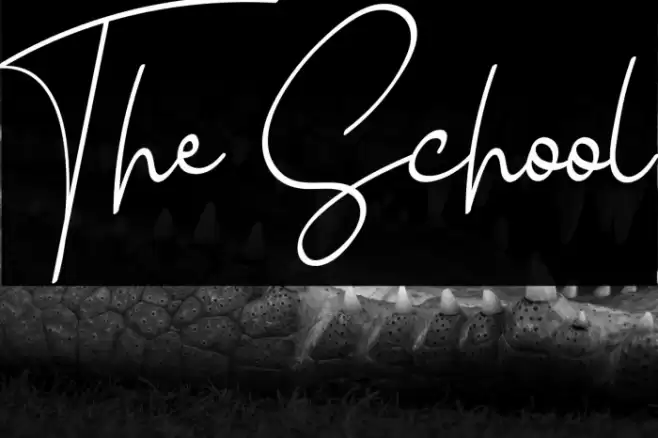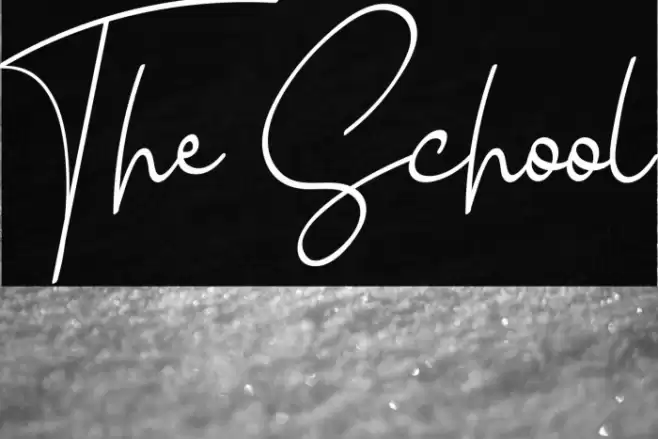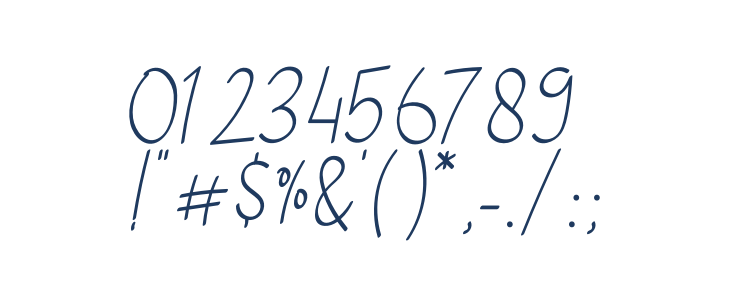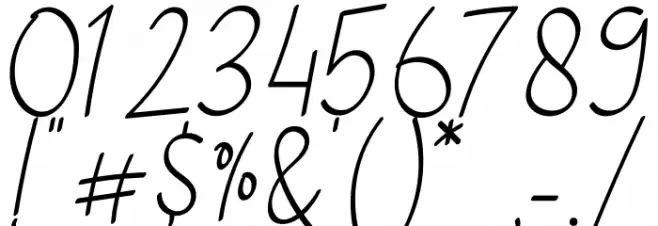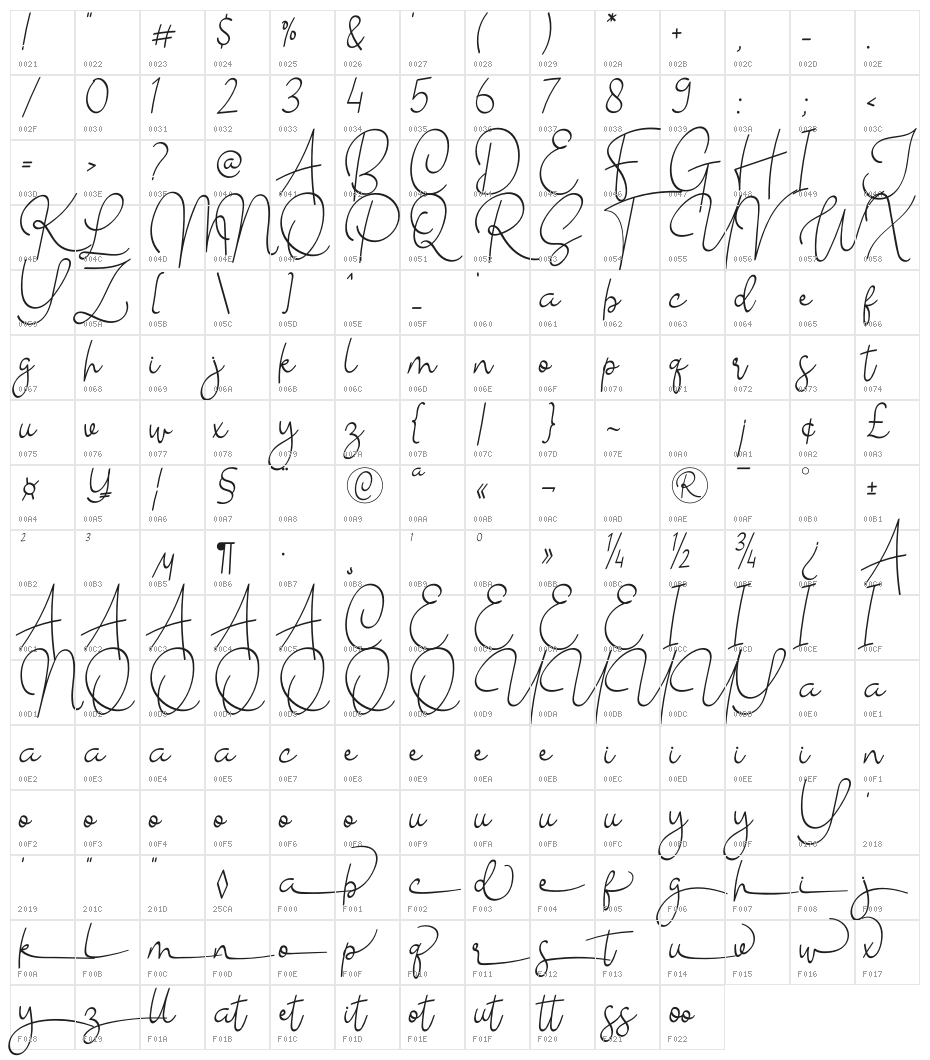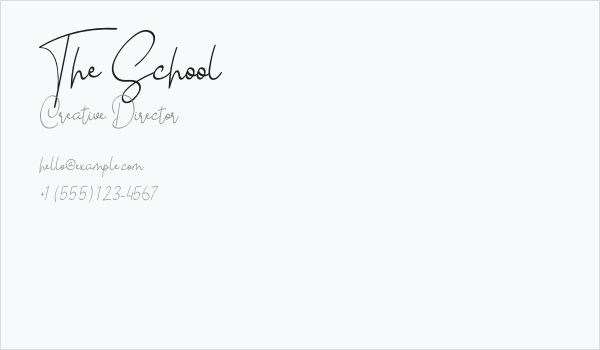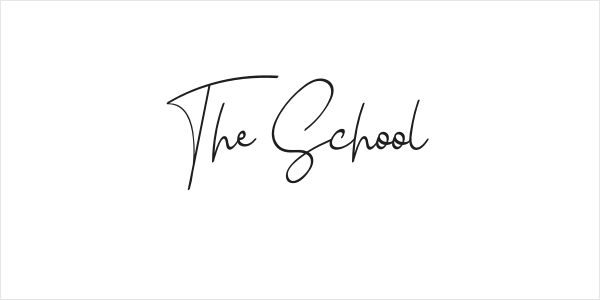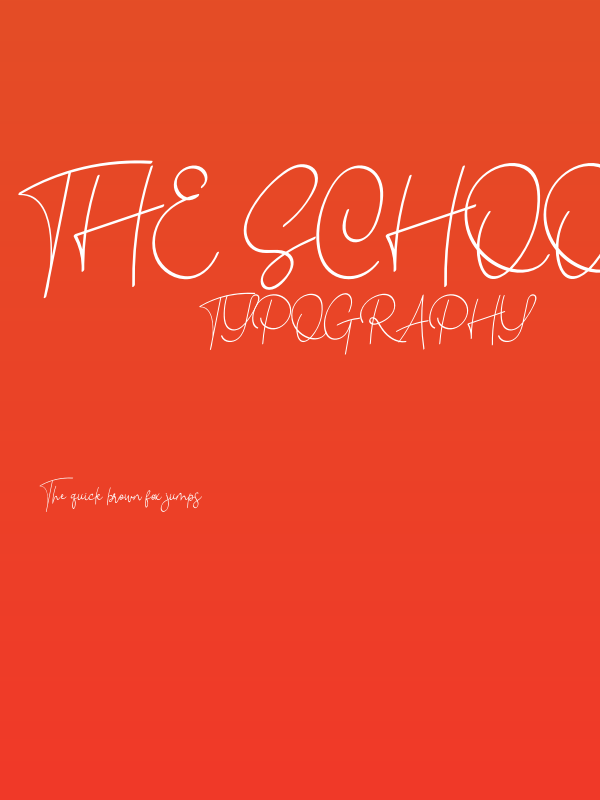
The School Font
The School Description
This font features a playful and whimsical script style, characterized by its flowing, interconnected letters that mimic the fluidity of handwriting. The uppercase letters are tall and slender, with elegant loops and curves that add a touch of sophistication. The lowercase letters maintain a consistent flow, with some letters featuring unique flourishes that enhance the overall aesthetic. The numerals are clear and legible, maintaining the same playful style as the letters. Special characters are creatively designed, fitting seamlessly with the rest of the font. This font exudes a sense of creativity and spontaneity, making it ideal for projects that require a personal touch.
A playful, whimsical script font with flowing, interconnected letters from Regular fonts.
- Proposed Projects: Ideal for invitations, greeting cards, personal branding, and creative projects that require a handwritten touch.
- Use Case: Logos, Invitations, Greeting cards